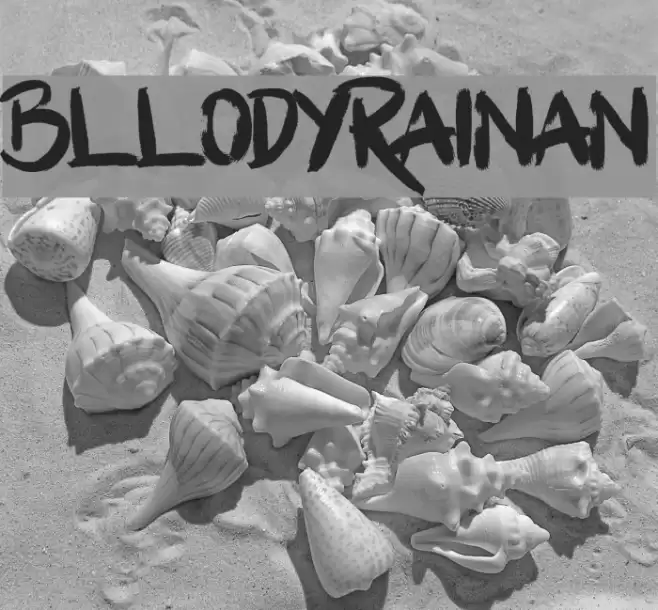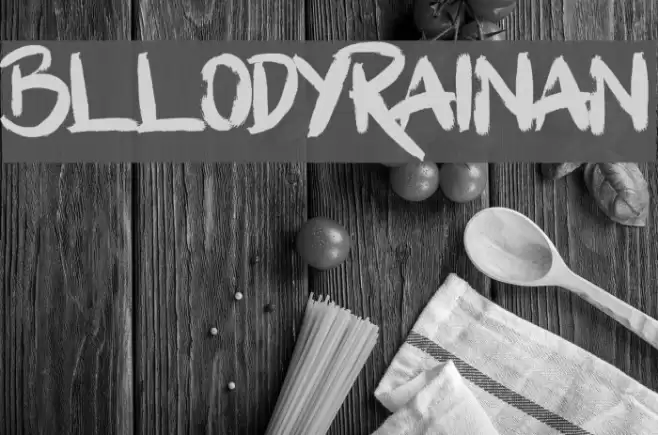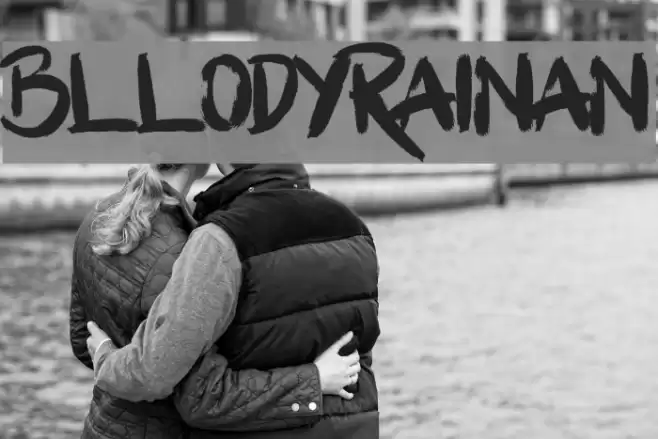
BllodyRainan Font
BllodyRainan Description
This font exhibits a bold, expressive style with a brush-like texture, giving it a dynamic and energetic appearance. The characters are crafted with a sense of movement and fluidity, resembling hand-painted strokes. The uppercase and lowercase letters maintain a consistent style, with slightly irregular edges that add to the handcrafted feel. The numbers and special characters follow the same aesthetic, ensuring a cohesive look across all glyphs. This font's unique and artistic design makes it stand out, perfect for projects that require a strong visual impact.
A bold, brush-style font with dynamic, hand-painted strokes from Script fonts.
- Proposed Projects: Ideal for posters, album covers, branding, and creative advertising campaigns.